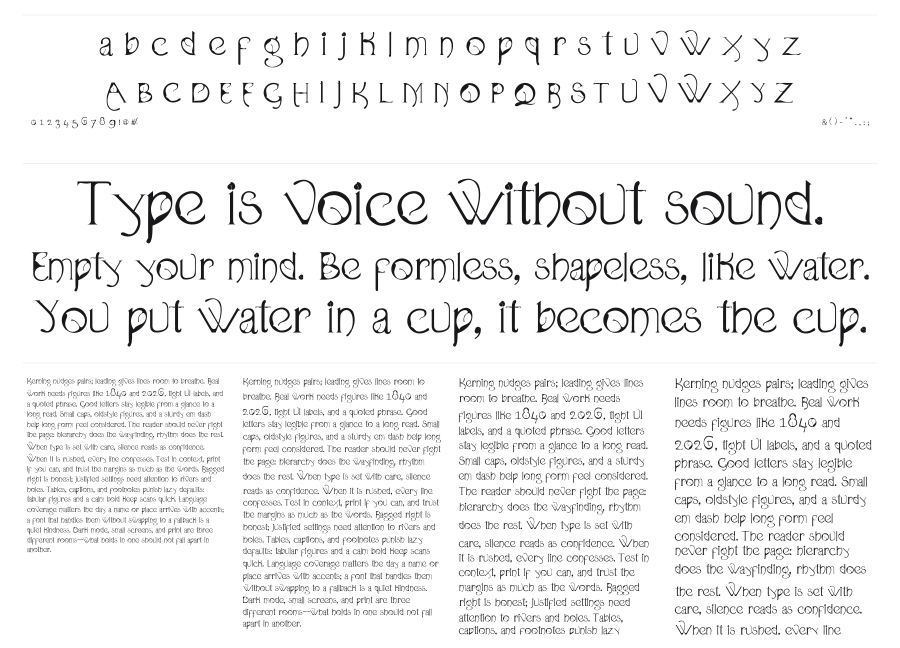
Organica 90
by Lizette Salame
Organica 90 is a decorative display face by Lizette Salame with sinuous, vine-like letterforms that draw heavily from Art Nouveau ornamental traditions. The curling strokes feel genuinely organic, as if each character grew rather than was drawn, giving it an elegant but slightly wild personality. Best at headline sizes for posters, packaging, or editorial work where you want something that feels lush and handcrafted.